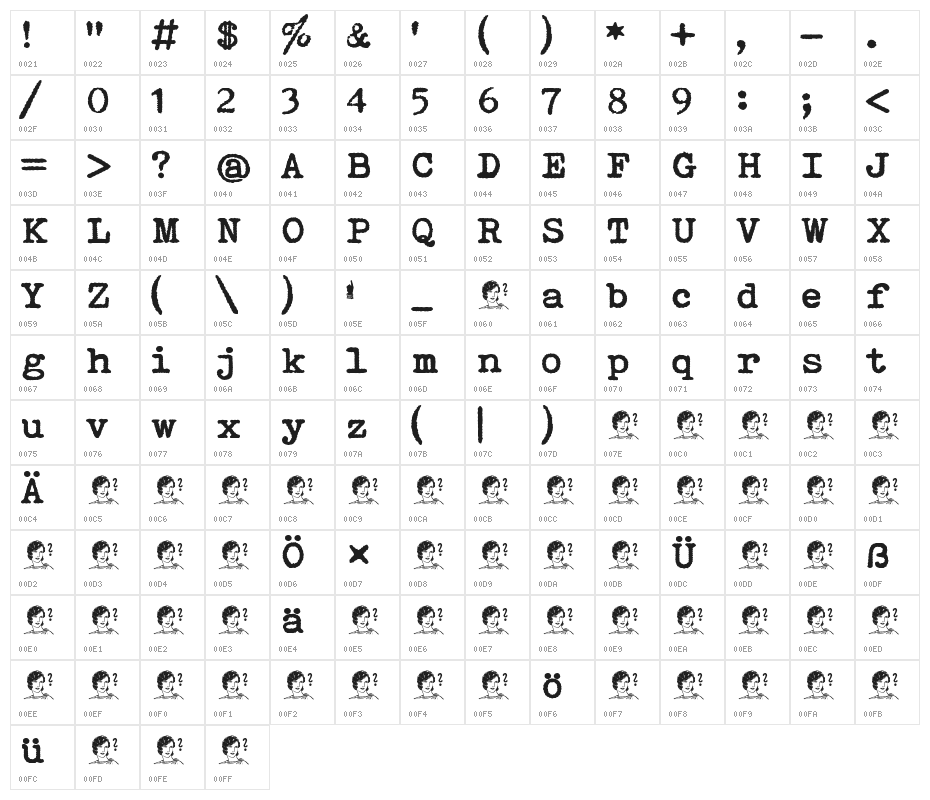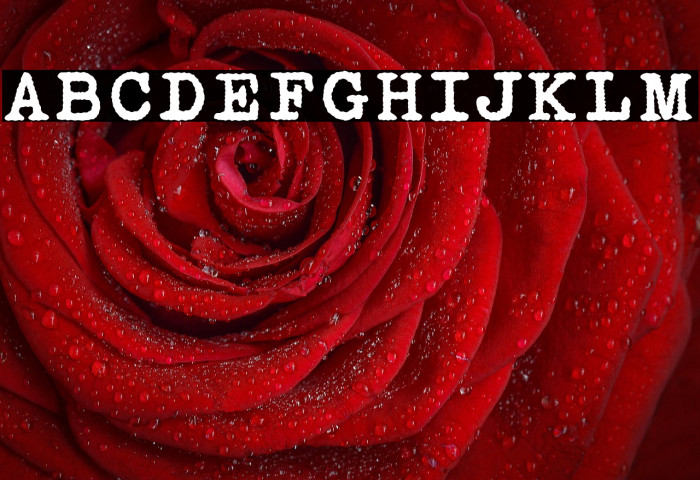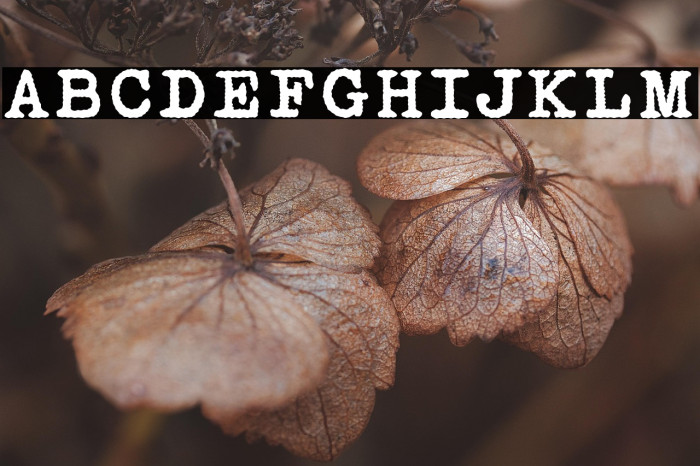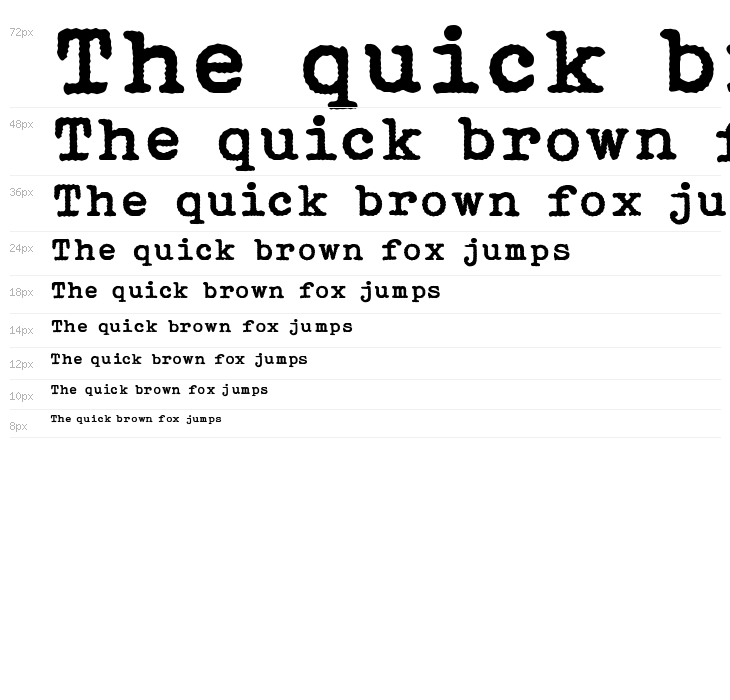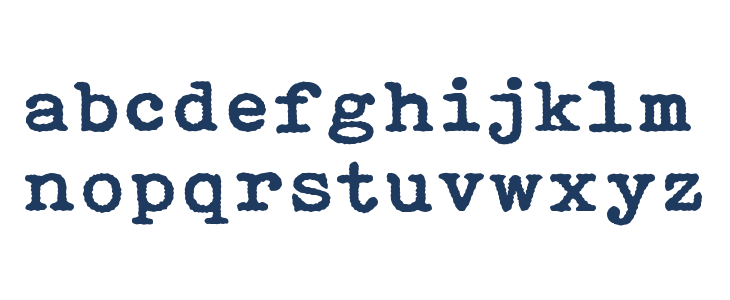
Mechonat Ktiva Font
Mechonat Ktiva Description
This typeface exudes a vintage, typewriter-inspired aesthetic with its monospaced, slab serif design. Each character is uniformly spaced, creating a mechanical and consistent appearance. The letters have a slightly distressed look, reminiscent of old typewriter print, adding a touch of nostalgia and authenticity. The uppercase and lowercase letters maintain a uniform height, enhancing readability and balance. The numerals and special characters are crafted with the same attention to detail, ensuring a cohesive look across all elements. This font is ideal for projects that aim to evoke a sense of history or retro charm.
| Proposed Projects | Ideal for retro-themed designs, typewriter art, vintage posters, and historical documents. |